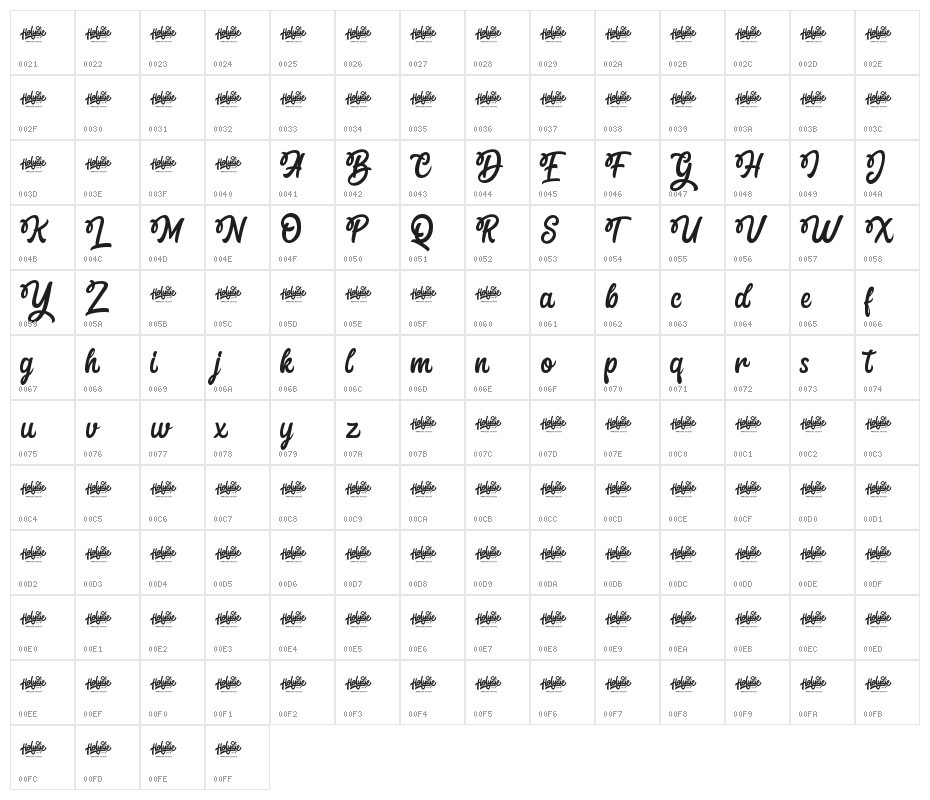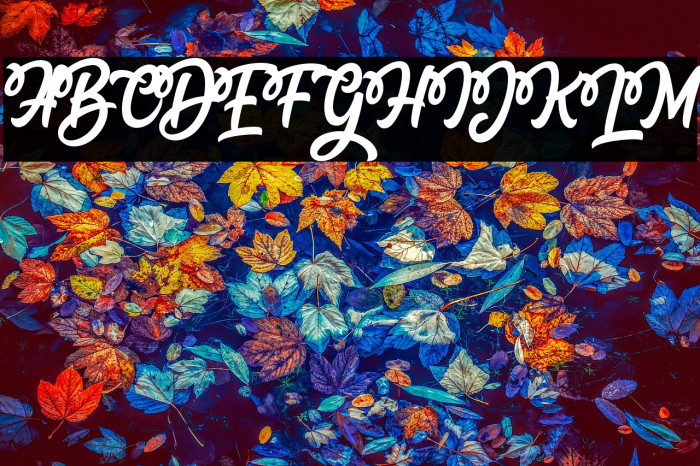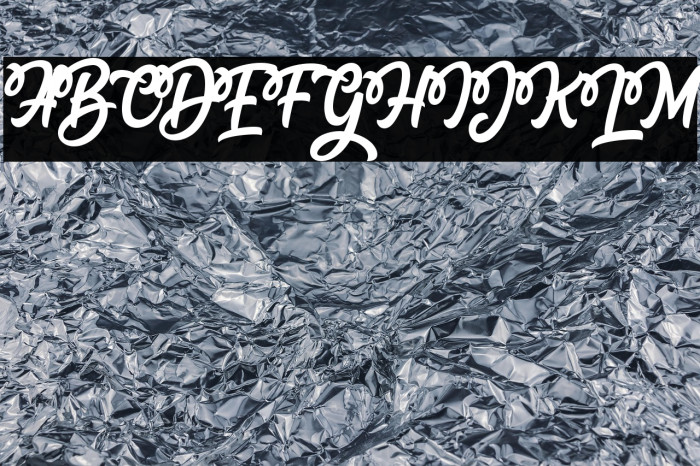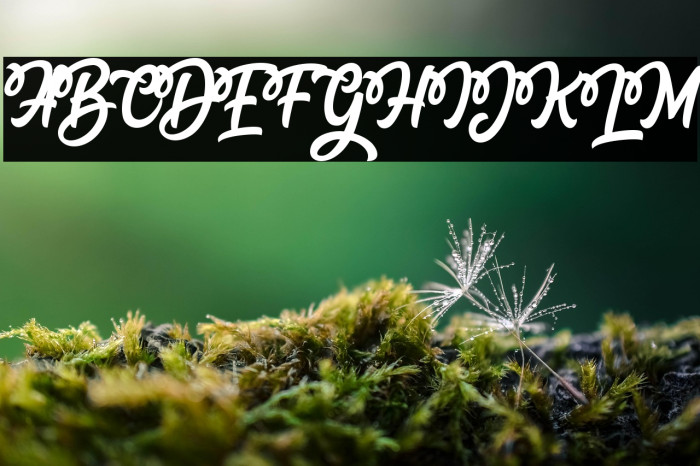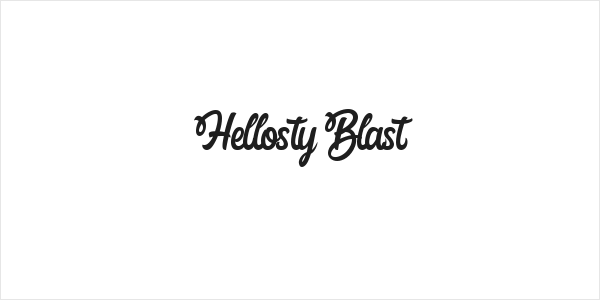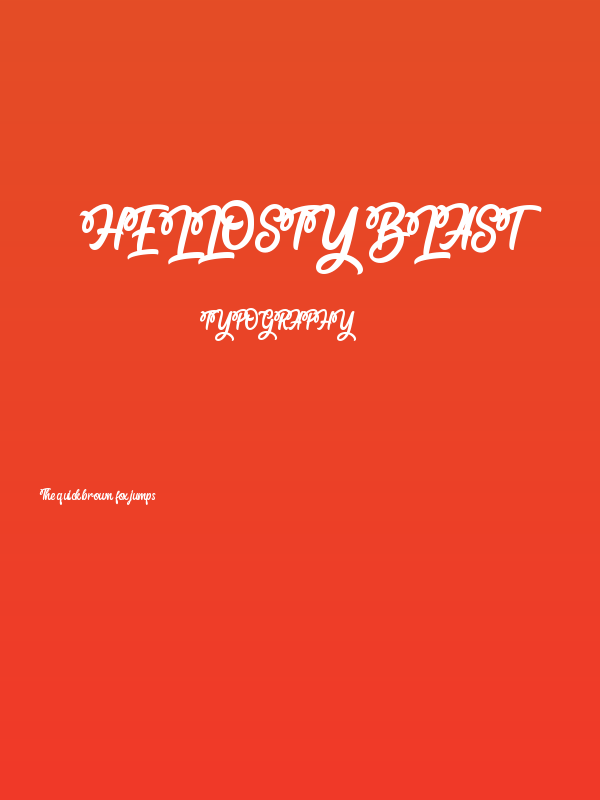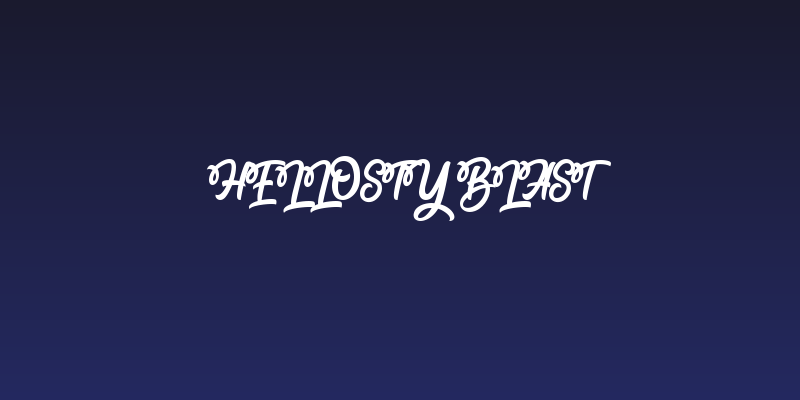
Hellosty Blast Font
Hellosty Blast Description
This font features a bold and flowing script style, characterized by its smooth, connected letters and elegant curves. The uppercase letters are ornate, with distinctive loops and flourishes that add a touch of sophistication. The lowercase letters maintain a consistent flow, enhancing readability while preserving the decorative nature of the font. The overall design is cohesive, with a harmonious balance between the thick and thin strokes, creating a dynamic yet legible appearance. This font exudes a sense of creativity and elegance, making it suitable for a variety of design projects.